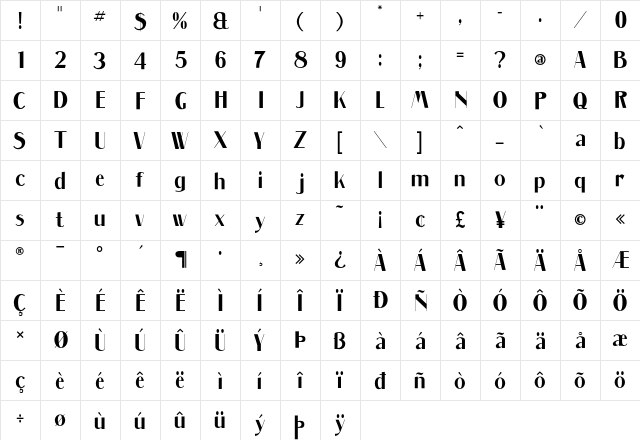
Massenet SemiBold Bold
Design Context for Massenet SemiBold Typeface
Massenet SemiBold is a composed and adaptable typeface that performs quietly and consistently across a wide range of design contexts. The heavy weight commands attention and anchors typographic hierarchies.